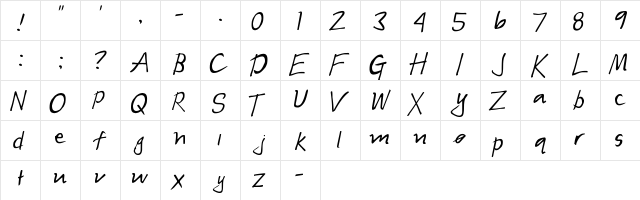
Song Contest 2012 - Light your fire! Regular
Design Context for Song Contest 2012 - Light your fire! Typeface
Song Contest 2012 - Light your fire! is a composed and adaptable typeface that performs quietly and consistently across a wide range of design contexts. The delicate stroke weight brings airiness and refinement to layouts.